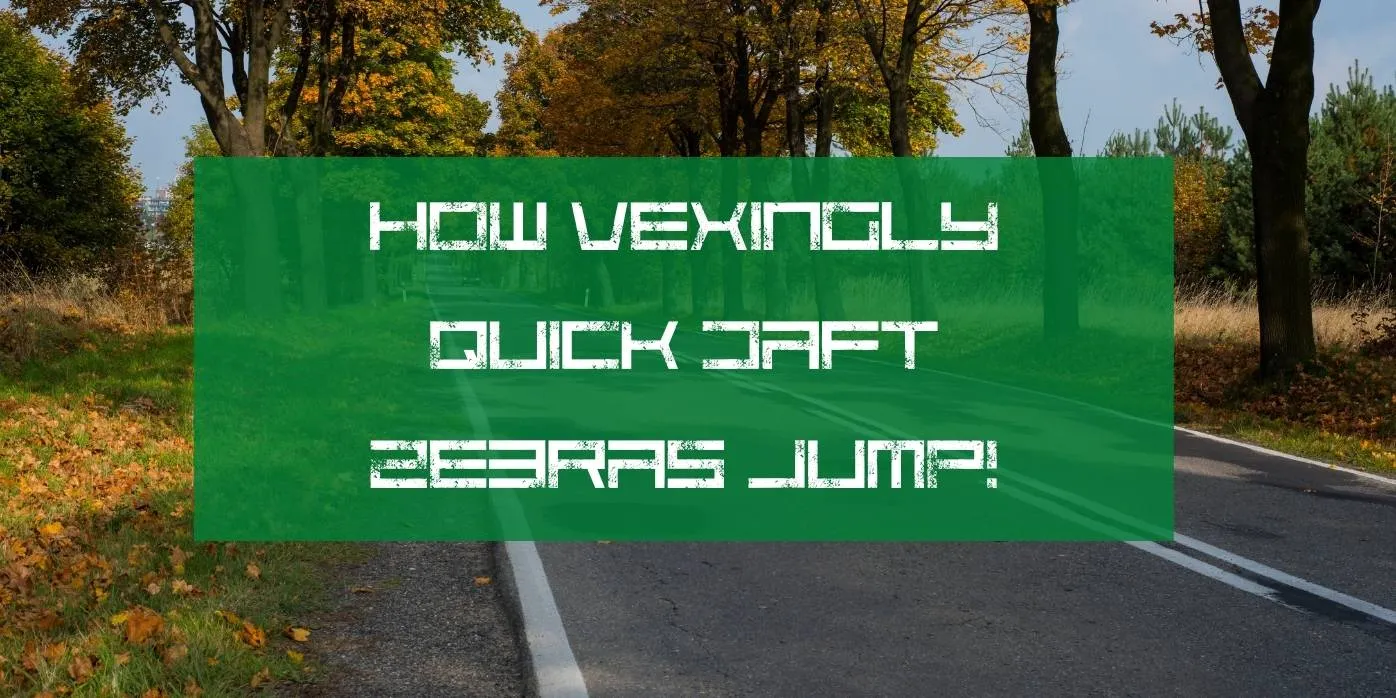
Code Predators Font
We present a very famous Code Predators Font that belongs to the display typeface. This particular font has created by Paul Reid, in 2009. This typeface was famous for the name Horror Film. It is perfect for those who want to give a techy and modern look to their projects.
Its copy and paste function is best for all of your designs. The uppercase characters of this font are very sharp whereas the lowercase letters are smooth. This makes it perfect for both headlines as well as body text. It has more than 60 Glyphs and also includes outclass 65 characters.
Code Predators Font is perfect for use in web design, logos, and print projects.